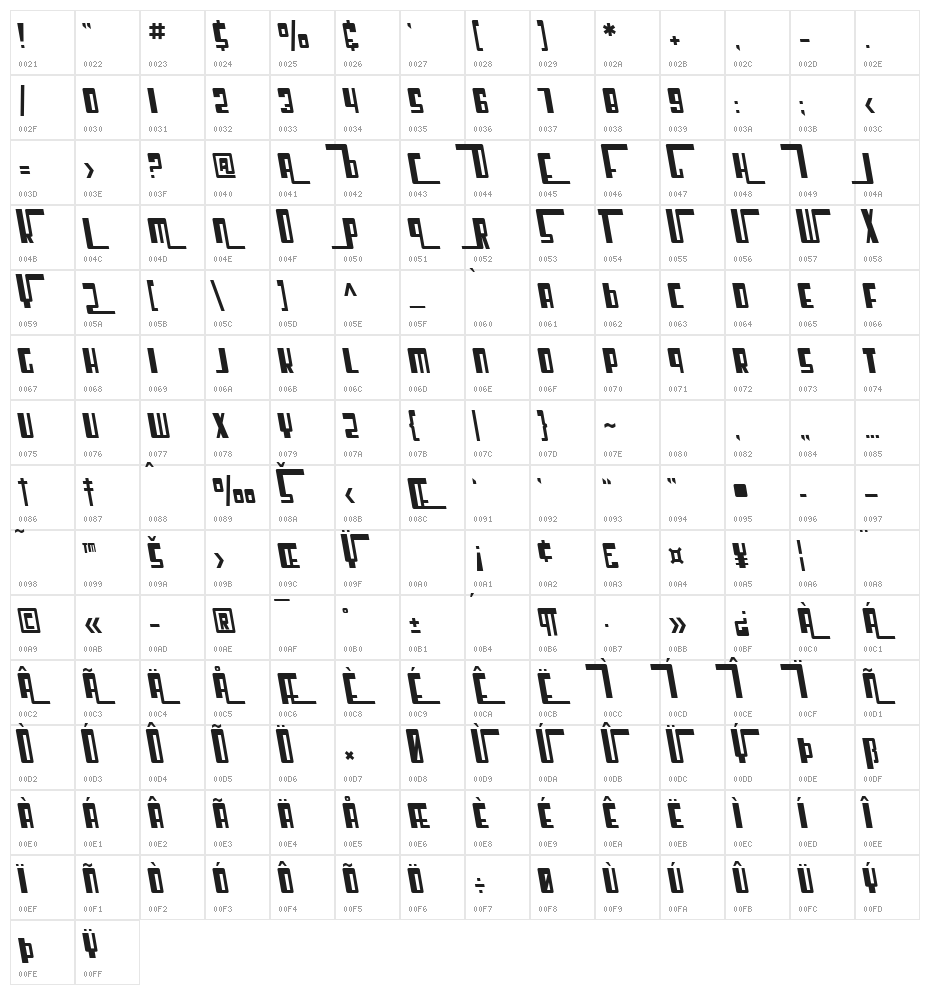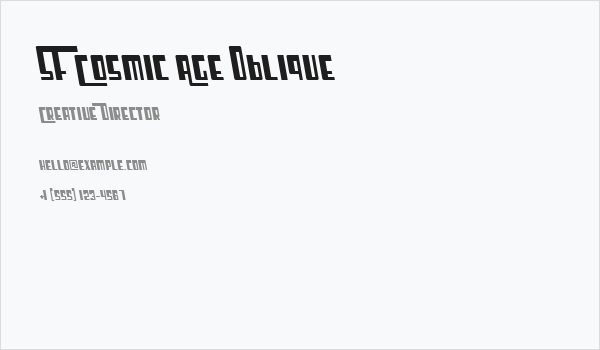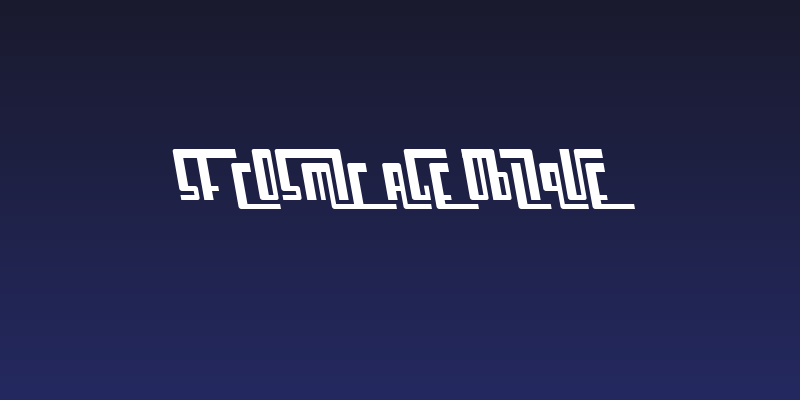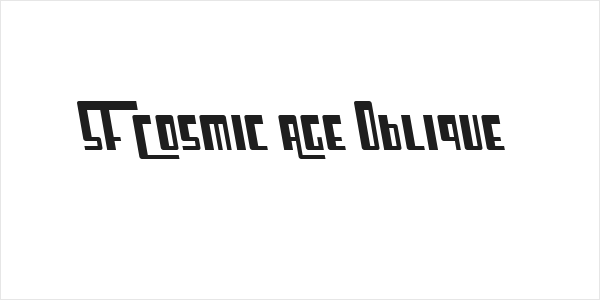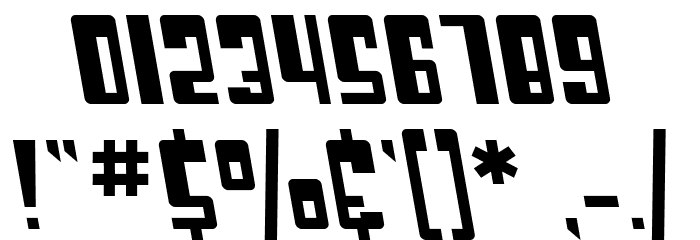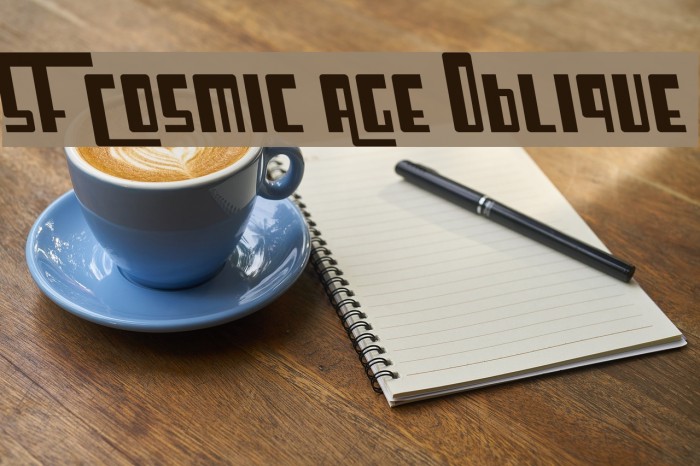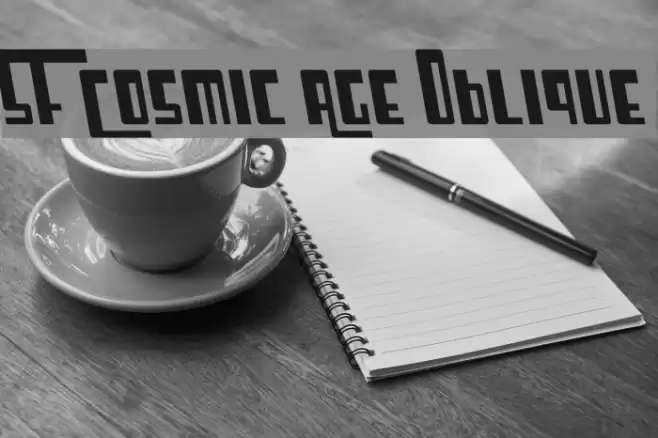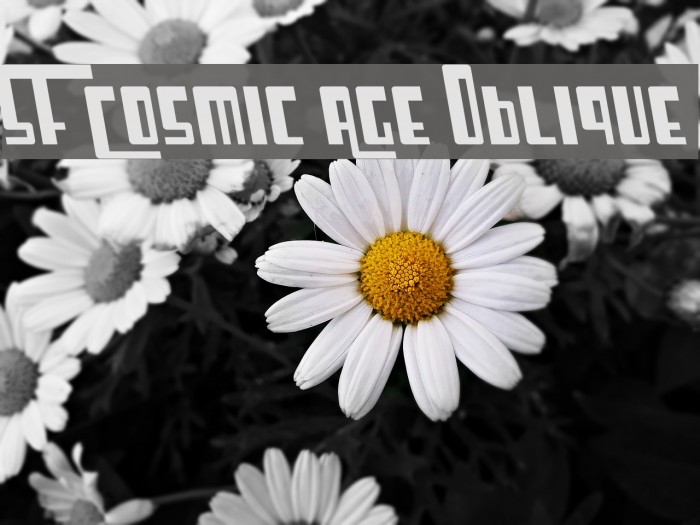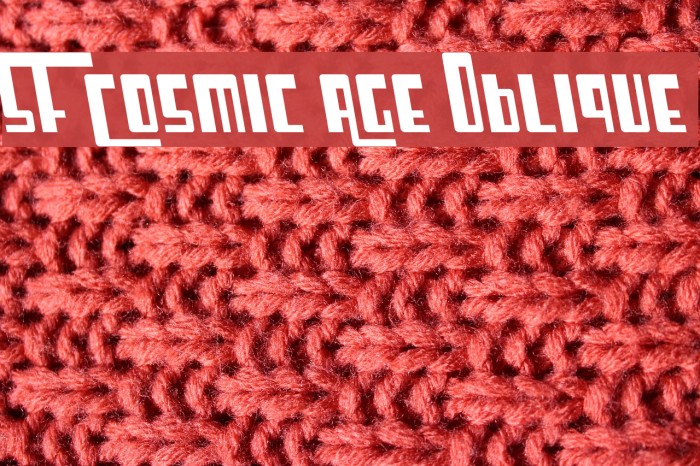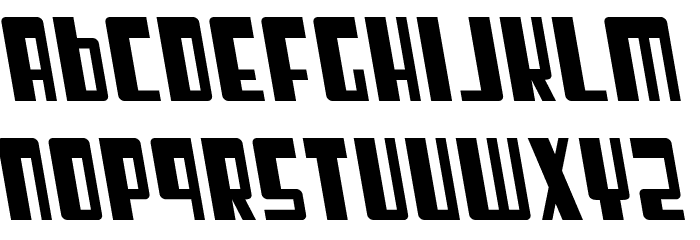
SF Cosmic Age Oblique Font
SF Cosmic Age Oblique Description
This font features a futuristic and angular design, characterized by its bold and geometric letterforms. The characters are slightly slanted, giving an oblique appearance that enhances its dynamic and modern aesthetic. The uppercase and lowercase letters maintain a consistent style, with sharp edges and a blocky structure. Numbers and special characters follow the same design principles, ensuring uniformity across all glyphs. The font's unique style makes it stand out, ideal for projects that require a strong visual impact.
| Proposed Projects | Ideal for sci-fi themed designs, video game graphics, movie posters, and branding that requires a modern, edgy look. |